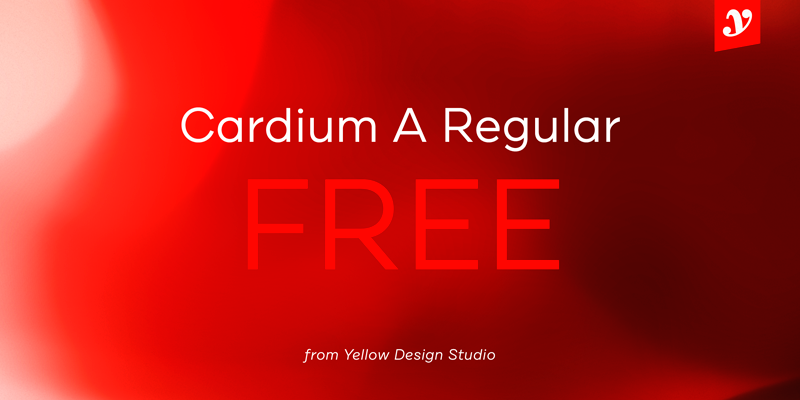
Font name: | Cardium A |
Cardium A Regular is free for personal use. For a commercial license of the entire 54-font family, visit http://www.yellowdesignstudio.com Cardium is a hard-working 54-font modern geometric sans. It�s versatile, clean, legible, and slightly dissident. Cardium shares much of its DNA with our Draft type suite but is more utilitarian. It�s a comprehensive family with nine weights from Hairline to Black and three widths - with �A� being the most extended, �B� having traditional body copy proportions and �C� gently condensed for times when space is at a premium. It offers a full complement of professional typographic features and extensive language support. |